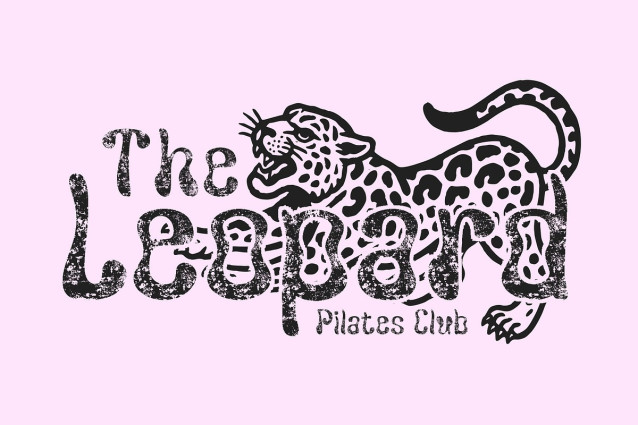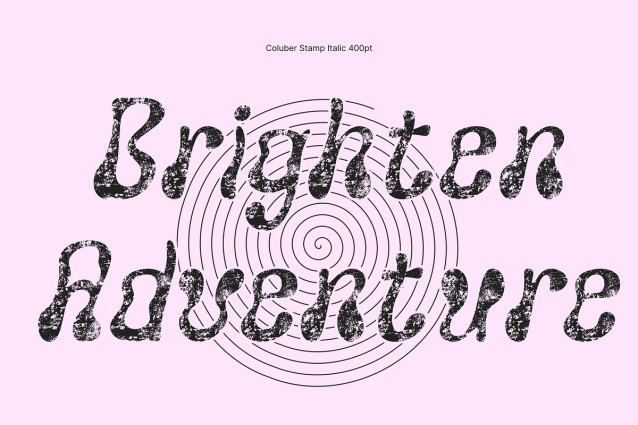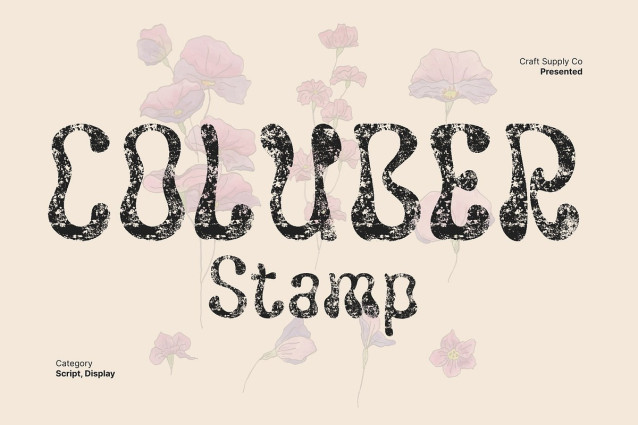
Coluber Stamp Font is a modern display font infused with a trippy, psychedelic spirit. Its dynamic lines and unconventional curves create a sense of movement and rhythm, giving the font a funky, artistic, and one of a kind appearance that instantly grabs attention.
Stamp Texture for Retro Warmth Enhanced with a stamp effect, each letter carries a vintage texture that adds warmth and handmade charm. This tactile detail gives the font a retro and expressive feel, blending modern creativity with nostalgic imperfection.
Perfect for Bold, Artistic Projects This font is ideal for posters, branding, music artwork, and creative projects that aim to capture a psychedelic and retro aesthetic. Its modern trippy shapes paired with vintage personality make it perfect for designs that want to feel bold, artistic, and visually captivating.
Funky, Warm, and Expressive With its curved energy, textured surface, and artistic soul, this font brings together modern experimentation and vintage charm, creating an unforgettable visual experience.